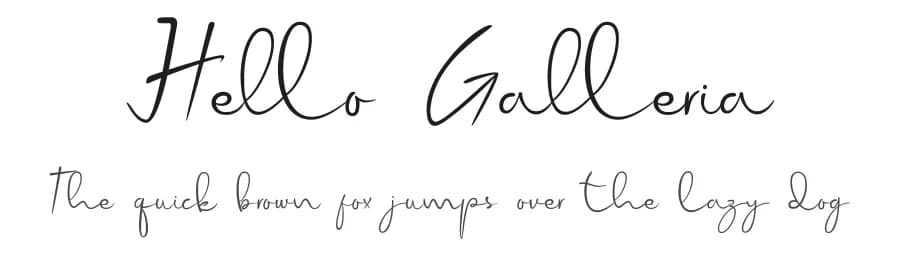
About Hello Galleria Font
Hello Galleria is a script & handwritten font designed by Andika Fez. It includes 355 glyphs, a regular weight, TTF (TrueType) format, and 223 languages. Hello Galleria is free to download; check the license details on this page before commercial use. Script & handwritten fonts like Hello Galleria work best for wedding invitations, greeting cards, signatures, and elegant branding.
Hello Galleria Font is a script font that shines as a display or heading face. Pair it with a clean sans-serif or serif font for body text β the contrast creates a clear hierarchy while the two styles stay balanced and easy to read.
Hello Galleria Font
by Andika Fez